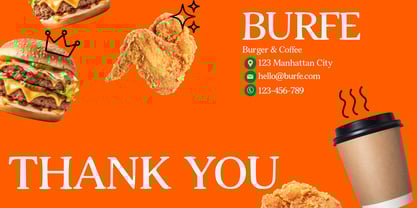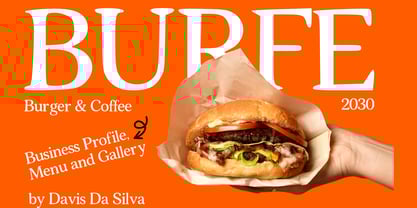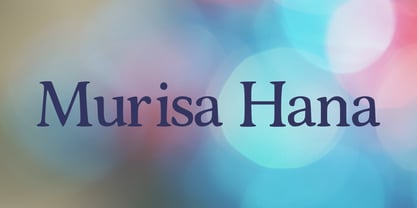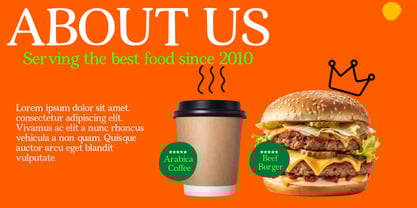
Murisa Hana
von Murisa Studio
Die Schriftfamilie Murisa Hana wurde von Lili Sadili entworfen und von Murisa Studio veröffentlicht. Murisa Hana enthält 2 Stile und Familienpaketoptionen.
🌹 Murisa Hana: The Poetry of Precision Where timeless heritage meets the sharp edge of modern luxury. Murisa Hana is not just a typeface; it is a visual statement designed for those who believe that every letter should be a masterpiece. ✨ A Symphony of Form Murisa Hana captures the soul of classical serif traditions and breathes new life into them. With its high-contrast strokes, refined terminals, and architectural stability, this font brings an air of quiet authority to any canvas. Whether it’s the graceful curve of the lowercase ‘g’ or the commanding presence of the capitals, every character has been meticulously sculpted to achieve perfect optical harmony. 🌍 Bridging the East and West True beauty knows no borders. Murisa Hana is engineered with a comprehensive Eastern European character set, ensuring that your message remains flawless and sophisticated across diverse linguistic landscapes. From the Baltic to the Balkans, your typography will speak with clarity, resonance, and cultural grace. 💎 Designed for the Extraordinary This is the choice for visionaries. Murisa Hana excels in environments where "good enough" is never an option: High-End Editorial: Transform magazines into galleries. Luxury Branding: Give haute couture and niche fragrances a voice of gold. Artistic Identity: Elevate logos into enduring legacies. 🖋️ Why Murisa Hana? Exquisite Legibility: Crystal clear at any scale, from bold headlines to intimate body text. Rhythmic Balance: Perfectly weighted to create a "visual hum" that leads the reader’s eye effortlessly. Global Versatility: Full support for Eastern European languages, expanding your creative reach. "Murisa Hana is more than a font—it is the whisper of luxury in a world of noise.
Designer: Lili Sadili
Herausgeber: Murisa Studio
Foundry: Murisa Studio
Eigentümer des Designs: Murisa Studio